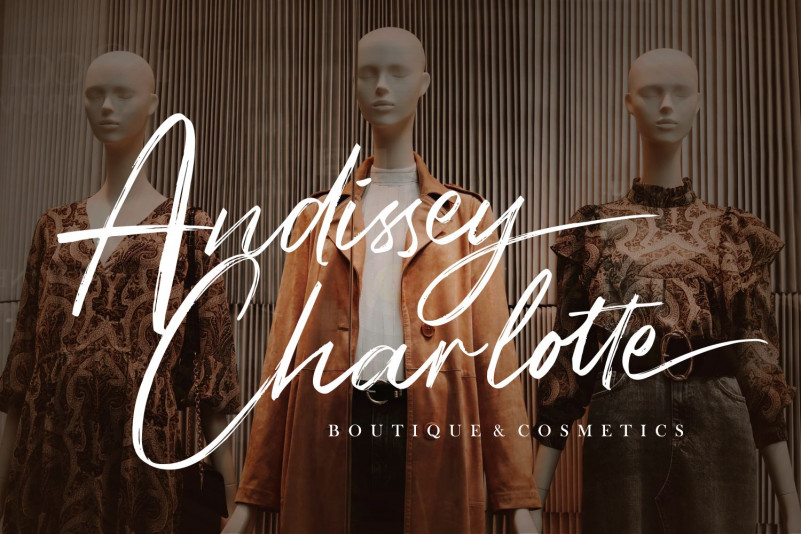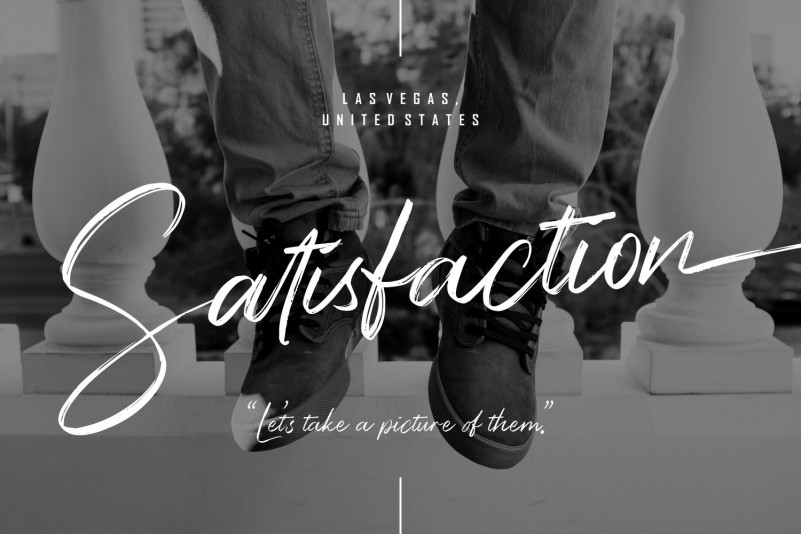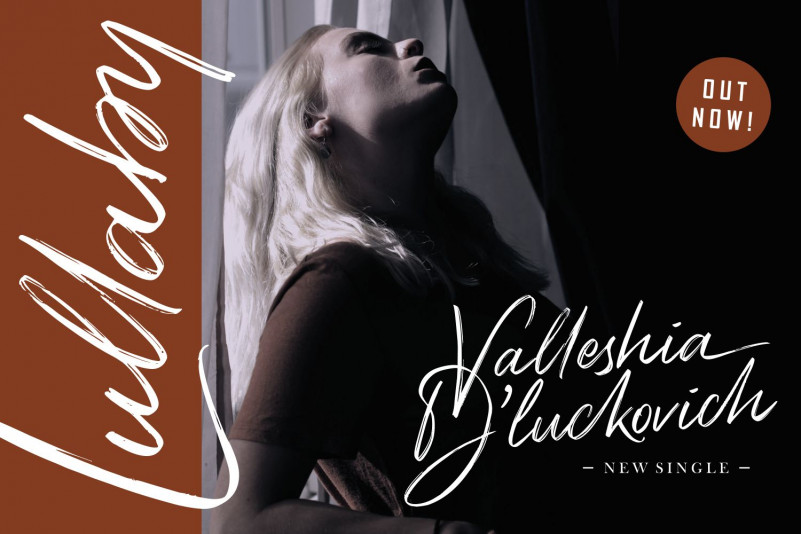
Bigsby Hills Brush Font
This is a lovely brush-style hand-drawn typeface. With an artistic flair and a crafty feel, this typeface is perfect for product packaging, branding, watermarks, social media, and more!